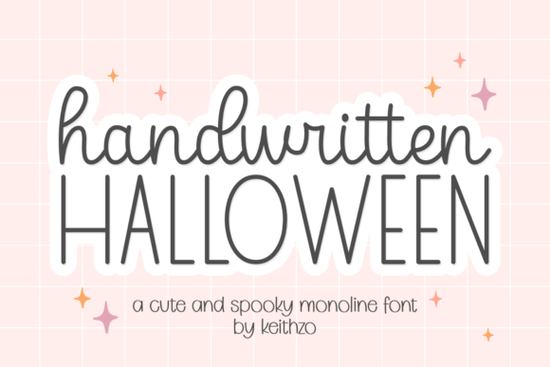
If you're looking for a friendly, hand-drawn script that feels festive not frightening Handwritten Halloween Font is a thoughtful choice. It’s not overly spooky or cartoonish; instead, it balances smooth, consistent line weight with subtle personality like something you’d write by hand while sipping cider and sketching party invites. Designers and crafters who’ve used it say it works especially well when they want warmth and charm without sacrificing readability.
What makes this font different from other Halloween fonts?
Most Halloween typefaces lean hard into gothic, grunge, or cartoon styles great for certain projects, but less versatile for everyday seasonal designs. Handwritten Halloween stands out because it’s monoline (meaning even stroke thickness), which gives it clean scalability and crisp results on fabric, ceramic, and print. You won’t get jagged edges on small sizes, and it holds up beautifully on light or dark backgrounds alike.
It includes full upper- and lowercase sets, plus standard punctuation and numbers no need to hunt for alternate characters or missing glyphs. That’s helpful if you’re designing printable party kits, custom mugs, or SVG cut files for Cricut or Silhouette users.
Where does it work best?
This font shines in contexts where approachability matters think handmade greeting cards, cozy café chalkboard signs, or boutique-style Halloween merch. Here are a few real-world uses people have shared:
- T-shirts and tote bags: Paired with simple icons (a black cat, a crescent moon, or a tiny pumpkin), it adds whimsy without clutter.
- Mugs and tumblers: The even line weight prevents ink bleed or blurring during sublimation or screen printing.
- Printable invitations and decorations: Works well alongside classic serif or sans-serif pairings try it with a clean, neutral body font for contrast.
- Digital stickers and Canva templates: Because it’s vector-friendly and cleanly spaced, it scales smoothly across devices and platforms.
It’s also a natural fit if you’re building seasonal product bundles say, pairing it with a warm winter-themed script for holiday-to-Halloween transitions, or layering it with a playful parent-focused script for family-friendly party kits.
How does it compare to similar fonts?
Unlike heavily textured or distressed Halloween fonts, Handwritten Halloween prioritizes clarity and consistency. That makes it easier to pair with photos, illustrations, or layered graphics especially important if you're selling on Etsy or Redbubble and want your text to stay legible at thumbnail size.
It’s more relaxed than formal calligraphy fonts like those in our wedding script collection, but still refined enough for upscale seasonal branding. And while it shares the hand-drawn feel of our chocolate-themed script, it swaps dessert sweetness for autumnal charm think cinnamon rolls instead of candy corn.
- Kerning matters: While the font is well-spaced out of the box, double-check letter pairs like “AV”, “To”, or “We” in larger display sizes minor manual tweaks often improve flow.
- Test on your intended medium: Try it on a dark background with white text, then reverse it. Some handwritten fonts lose contrast when inverted this one holds up well, but always verify.
- Pair thoughtfully: It works best with clean, low-contrast companions a modest sans-serif like Montserrat or a gentle serif like Merriweather keeps focus on the script without competing.
If you're already working on fall-themed designs, consider saving time by grabbing a coordinated set: many users combine Handwritten Halloween with seasonal clipart bundles or coordinating SVGs from the same designer. It helps maintain visual harmony across product lines whether you're making Halloween posters for a local library or custom trick-or-treat bags for a neighborhood event.
Next step: Open your design app, type “Happy Halloween” in Handwritten Halloween, adjust tracking to –10–20, and try it over a soft watercolor background. If it feels inviting not intimidating you’ve found your go-to seasonal script.